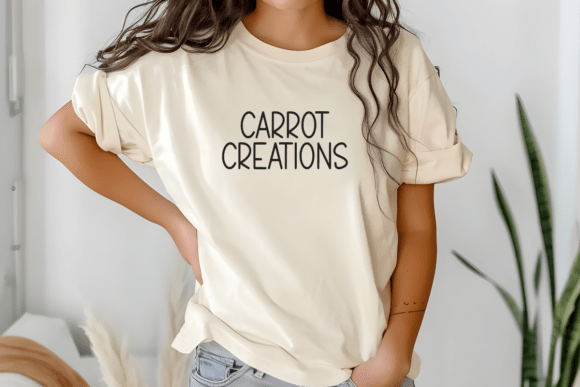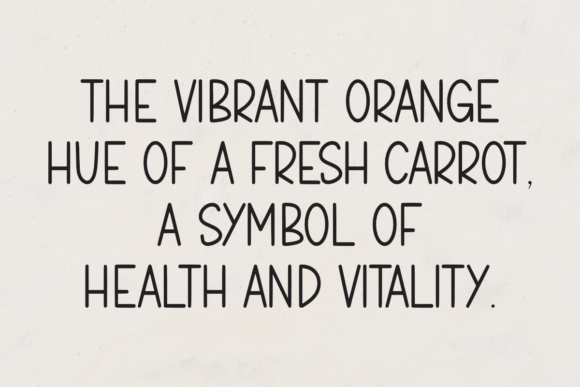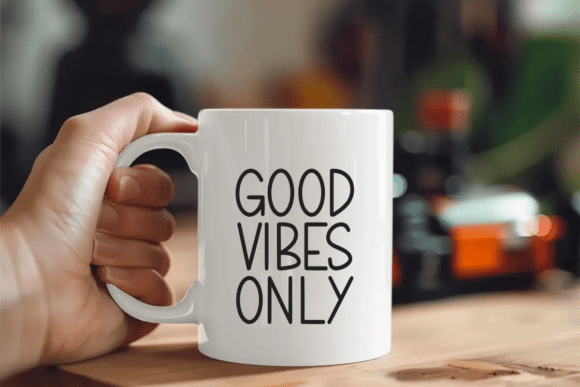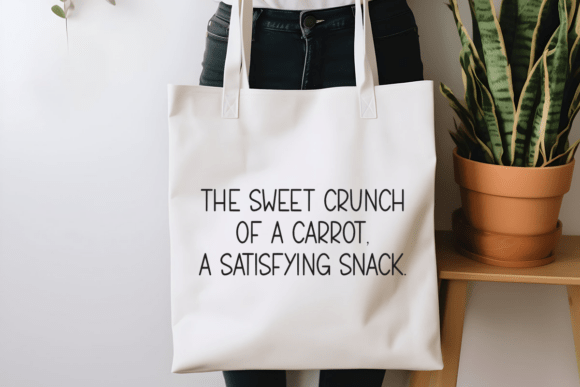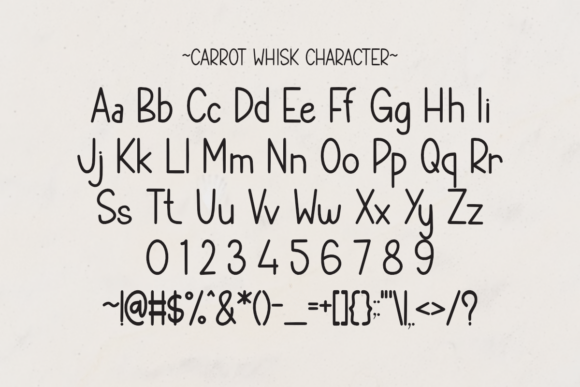
Introducing Carrot Whisk Font: The Perfect Playful Handwritten Font for Crafters and Designers
Are you a crafter, designer, or maker looking for a font that adds a touch of playfulness and friendliness to your projects? Look no further than Carrot Whisk Font! This delightful handwritten font is perfect for a wide range of creative endeavors, from crafts and planners to KDP, stickers, greeting cards, and more.
What Makes Carrot Whisk Font So Special?
Carrot Whisk Font boasts a cute and friendly style that instantly elevates any project. Its playful, handwritten aesthetic makes it an ideal choice for crafters, designers, and makers who want to add a personal touch to their creations. Whether you’re working on a DIY project, creating custom stickers, or designing a greeting card, Carrot Whisk Font is sure to bring a smile to your face and make your project stand out.
Ideal for Crafters, Designers, and Makers
Carrot Whisk Font is specifically designed with crafters, designers, and makers in mind. Its playful, handwritten style makes it perfect for a wide range of applications, including:
• Crafts: Add a personal touch to your handmade crafts, such as knitted items, jewelry, or home decor.
• Planners: Create custom planners, journals, or organizers that are both functional and visually appealing.
• KDP: Use Carrot Whisk Font to create eye-catching book covers, journals, or planners for Kindle Direct Publishing.
• Stickers: Design custom stickers for laptops, water bottles, or any other surface that needs a touch of personality.
• Greeting Cards: Create one-of-a-kind greeting cards for special occasions, such as birthdays, weddings, or holidays.
Why Choose Carrot Whisk Font?
With so many fonts available, why choose Carrot Whisk Font? Here are just a few reasons why this font stands out:
• Unique Style: Carrot Whisk Font boasts a distinctive, playful style that’s sure to set your projects apart.
• Ease of Use: This font is easy to read and works well in a variety of contexts, from digital designs to print materials.
• Versatility: Carrot Whisk Font is suitable for a wide range of applications, from crafts and planners to KDP and stickers.
• High-Quality: This font is designed to deliver high-quality results, whether you’re working on a digital project or a print material.
Get Creative with Carrot Whisk Font
Ready to unleash your creativity with Carrot Whisk Font? Whether you’re a seasoned designer or a crafter looking for a new font to add to your arsenal, this playful handwritten font is sure to inspire. With its cute and friendly style, Carrot Whisk Font is the perfect choice for anyone looking to add a touch of whimsy to their projects.